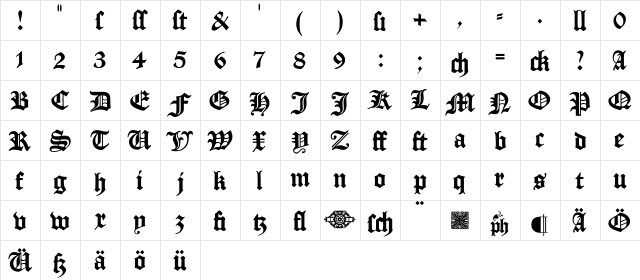
ManuskriptGotisch Regular Font Preview
ManuskriptGotisch Regular
ManuskriptGotisch Regular Font Details
Design Context for ManuskriptGotisch Typeface
ManuskriptGotisch is a composed and adaptable typeface that performs quietly and consistently across a wide range of design contexts.